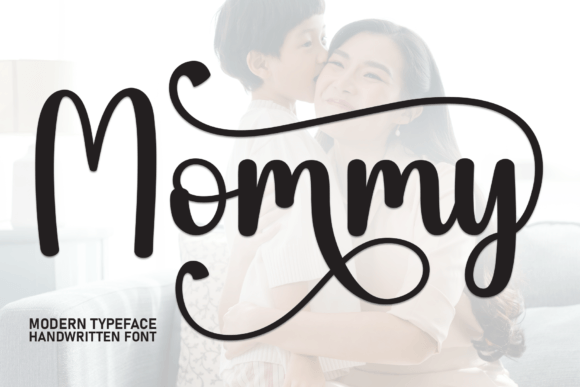
Unleash your creativity and dive into the enchanting world of the Mommy Font family. This exceptional script font, designed by the talented Strongkeng Old, is more than just a collection of letters; it's an artistic masterpiece that will transform your designs into enchanting realms.
With its captivating modern yet whimsical style, the Mommy Font family will add a touch of magic to any project. Its flowing curves and playful characters are like tiny dancers, guiding your words into a mesmerizing dance of expression. Whether you're crafting logos, creating invitations, or designing social media posts, the Mommy Font family will make your words sing.
Dive into the depths of your imagination and let the Mommy Font family carry you away. Its endless possibilities will inspire you to create designs that captivate and leave a lasting impression. Let your creativity run wild as you explore the diverse range of styles within this font family, from elegant and sophisticated to playful and whimsical. The Mommy Font family is the perfect companion for any creative soul seeking to add a touch of magic to their work.
Make a bold statement with the Mommy Font family and watch as your designs come to life. Its unique charm and versatility will leave your audience spellbound, eager to embark on the enchanting journey that your words will take them on. Embrace the power of this extraordinary font family and let your creativity flourish like never before.